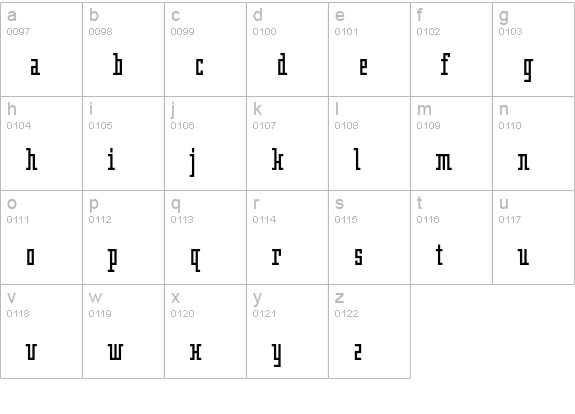
OblongA Font Details
Introducing OblongA font, a sleek and modern typeface designed to bring a touch of sophistication to your projects. With its unique and eye-catching oblong shapes, this font is perfect for adding a contemporary edge to any design. OblongA font strikes the perfect balance between elegance and readability, making it ideal for a wide range of applications. Best of all, OblongA font is completely free to download at FontsMarket.com. Whether you're working on a branding project, designing a website, or creating eye-catching posters, this font is sure to make a lasting impression. Don't miss out on the opportunity to enhance your work with the stylish and versatile OblongA font - download it today and elevate your designs to the next level!